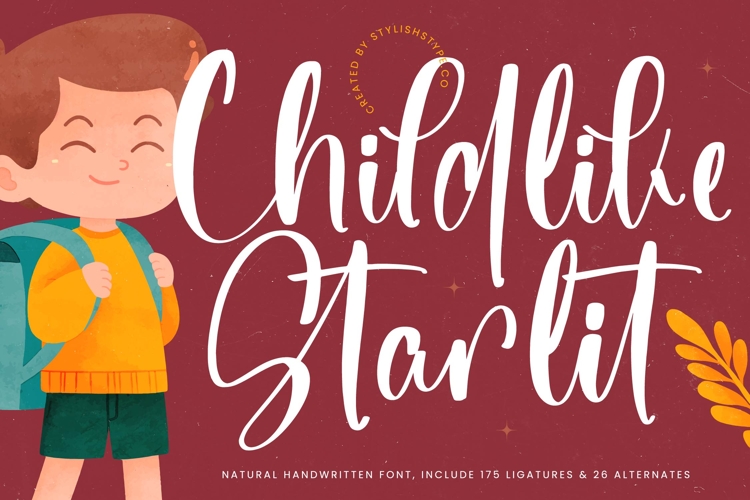
Childlike Starlit - Natural Handwritten Font
Childlike Starlit is a natural handwritten font that radiates warmth, playfulness, and creativity. With its bold handwritten strokes, cheerful ligatures, and casual flow, this typeface is perfect for projects that aim to feel friendly, fun, and approachable. Featuring 175 ligatures and 26 alternates, Childlike Starlit provides designers with flexibility to create unique, expressive, and kid-friendly lettering.
This font works wonderfully in branding. Ideal for children’s products, toys, clothing lines, educational materials, and playful packaging, Childlike Starlit communicates friendliness and authenticity. Its handwritten charm ensures that branding projects appear approachable, creative, and memorable, making it a strong choice for family-oriented brands.
In editorial and publishing, Childlike Starlit adds character and joy. Children’s books, magazines, educational guides, and event flyers benefit from its fun strokes and energetic feel. It creates editorial layouts that are visually engaging and easy to read, making it perfect for younger audiences.